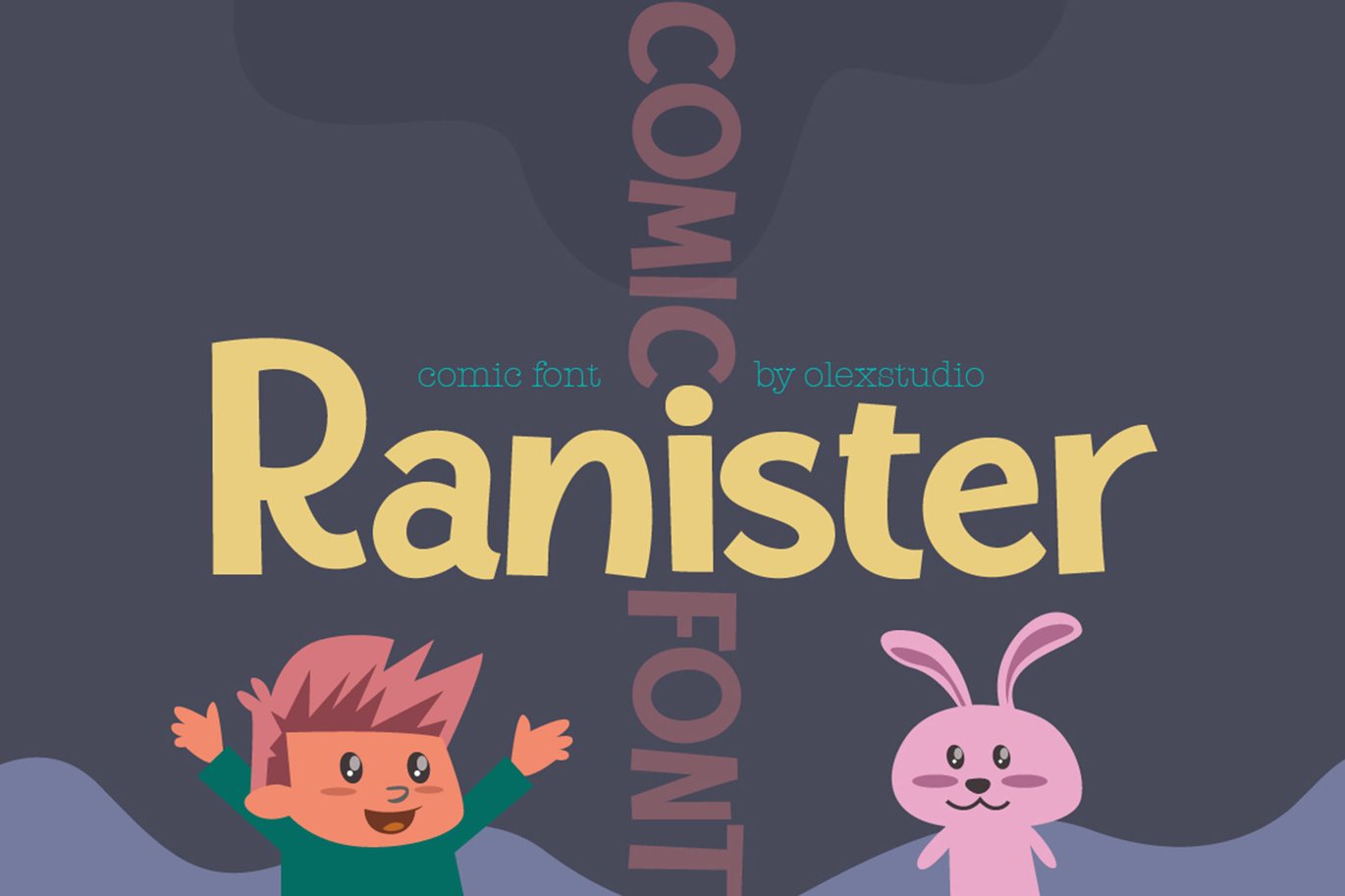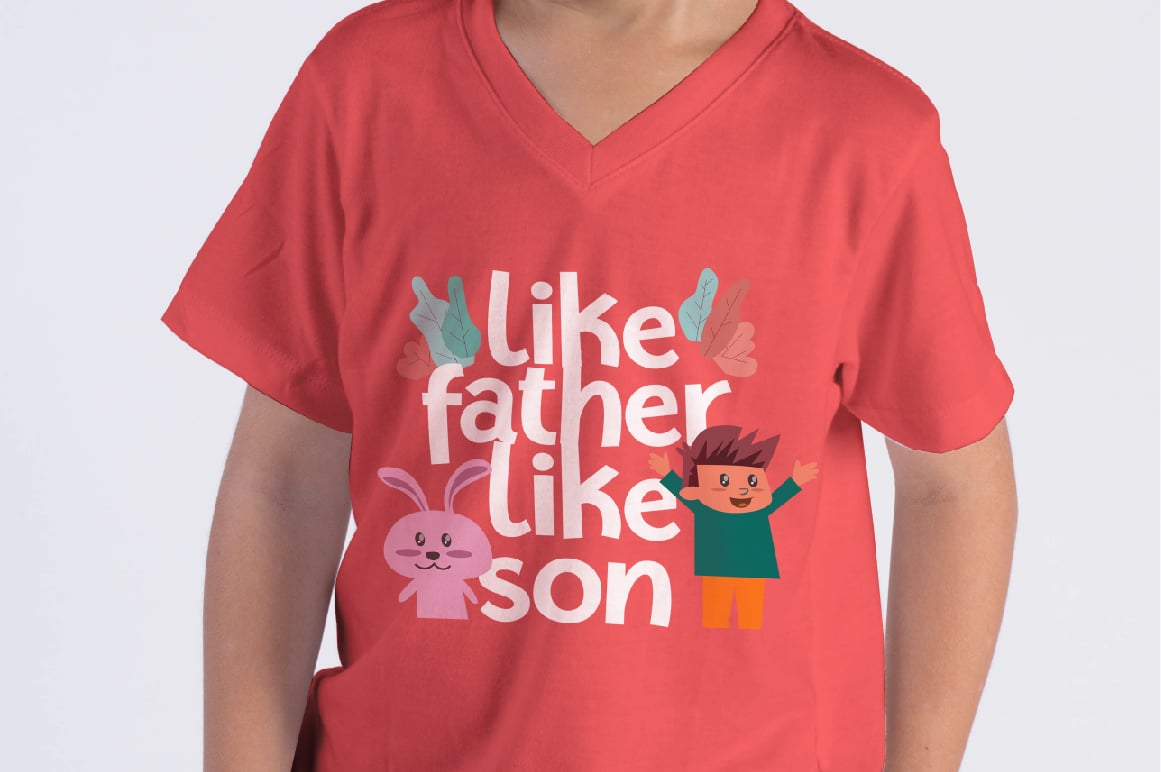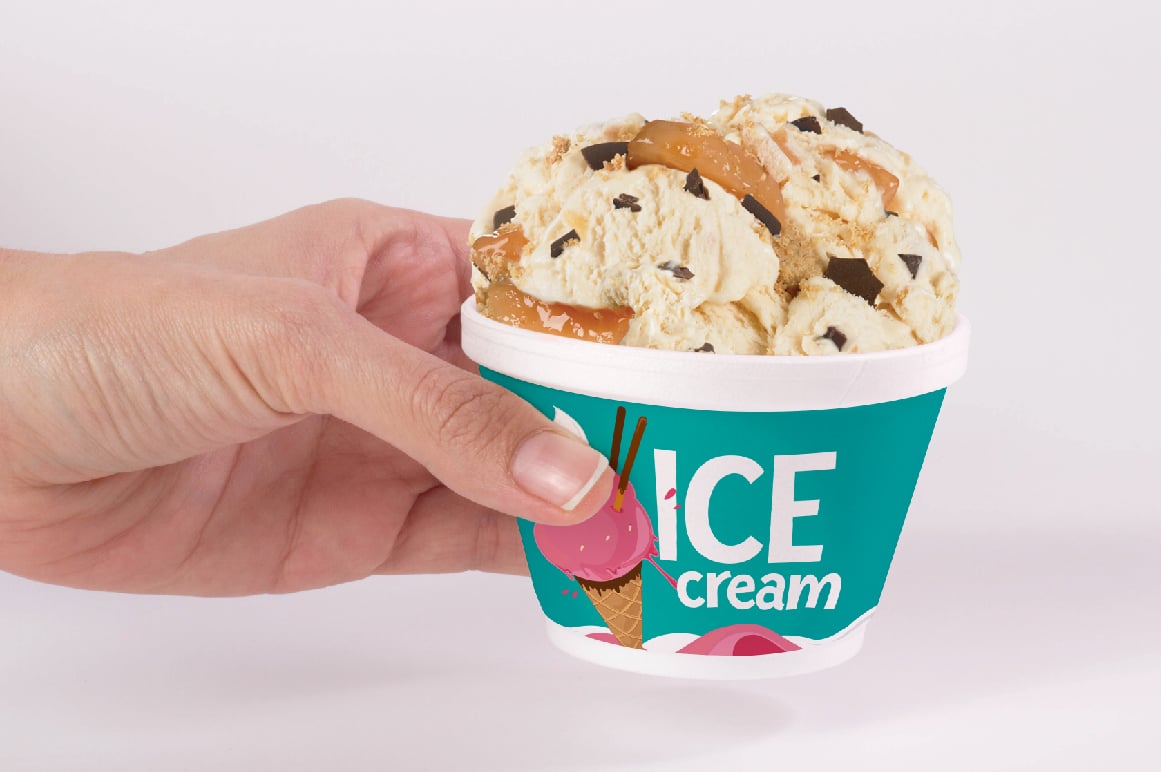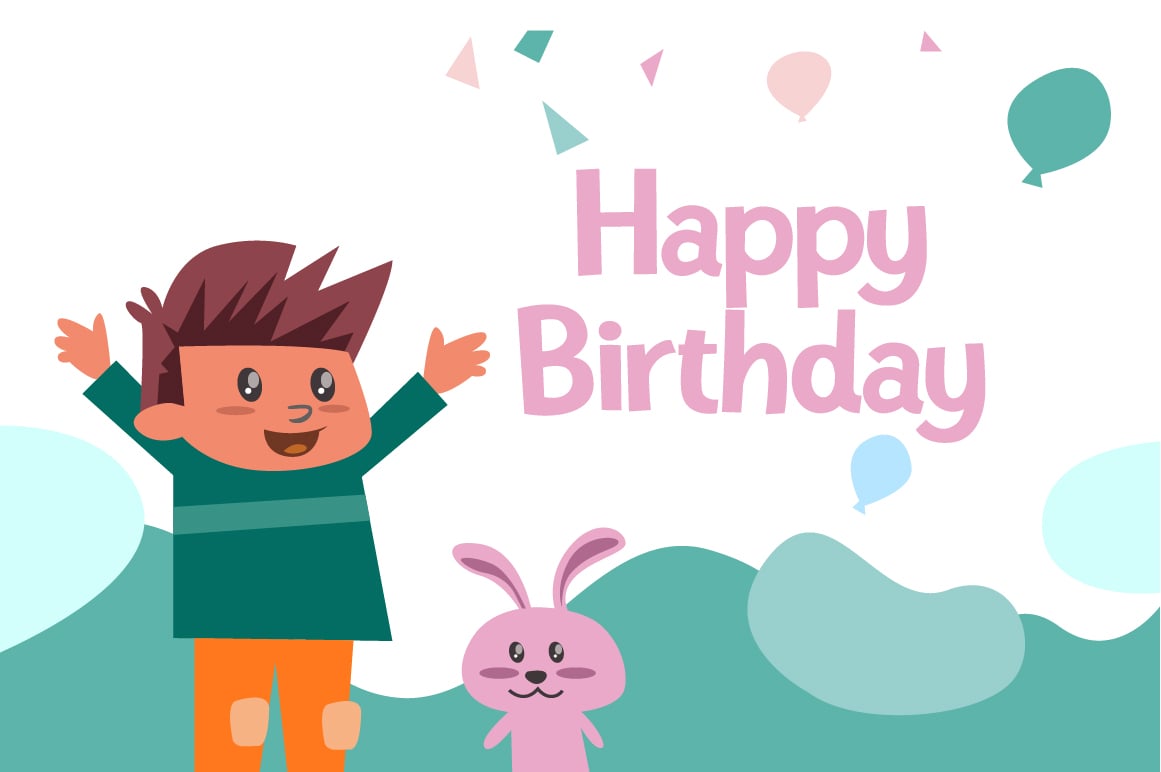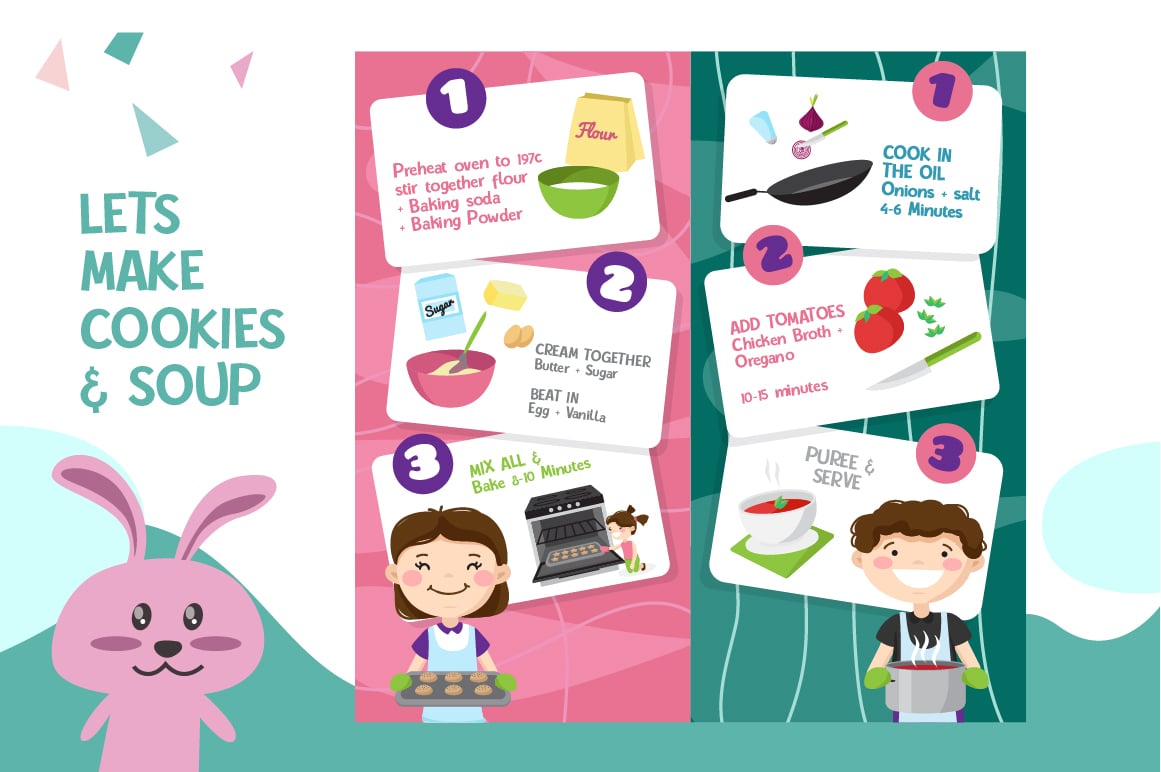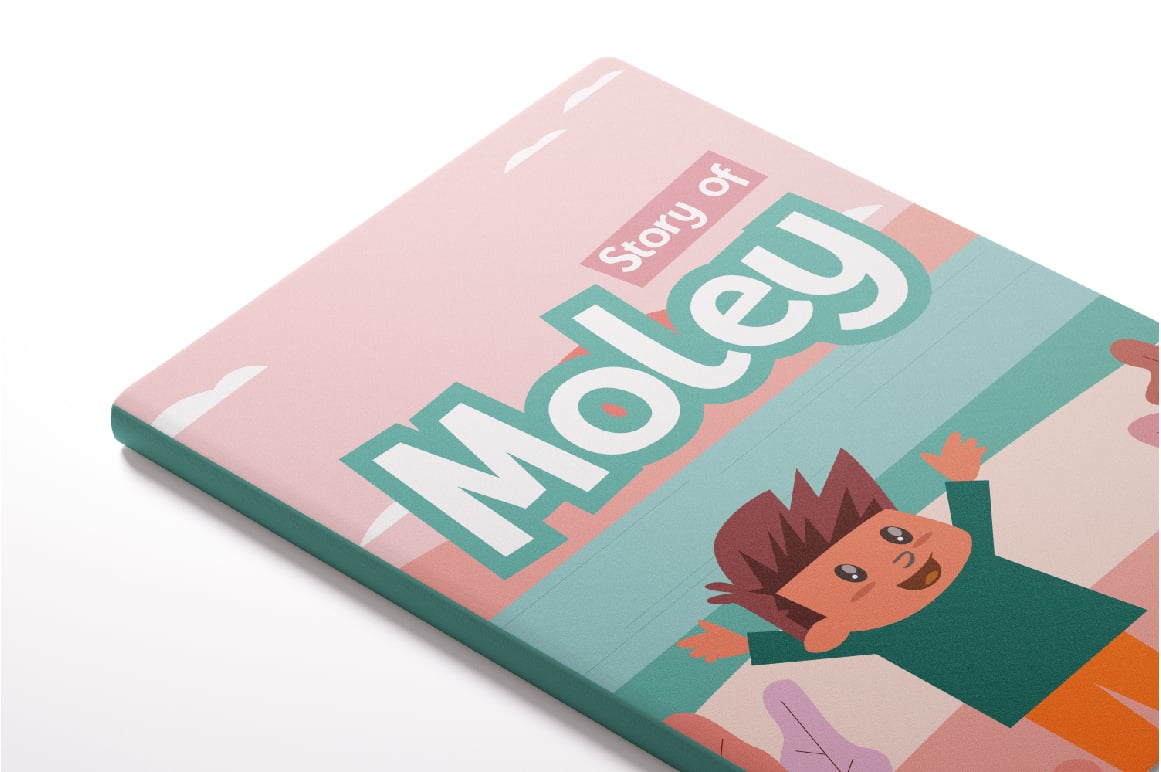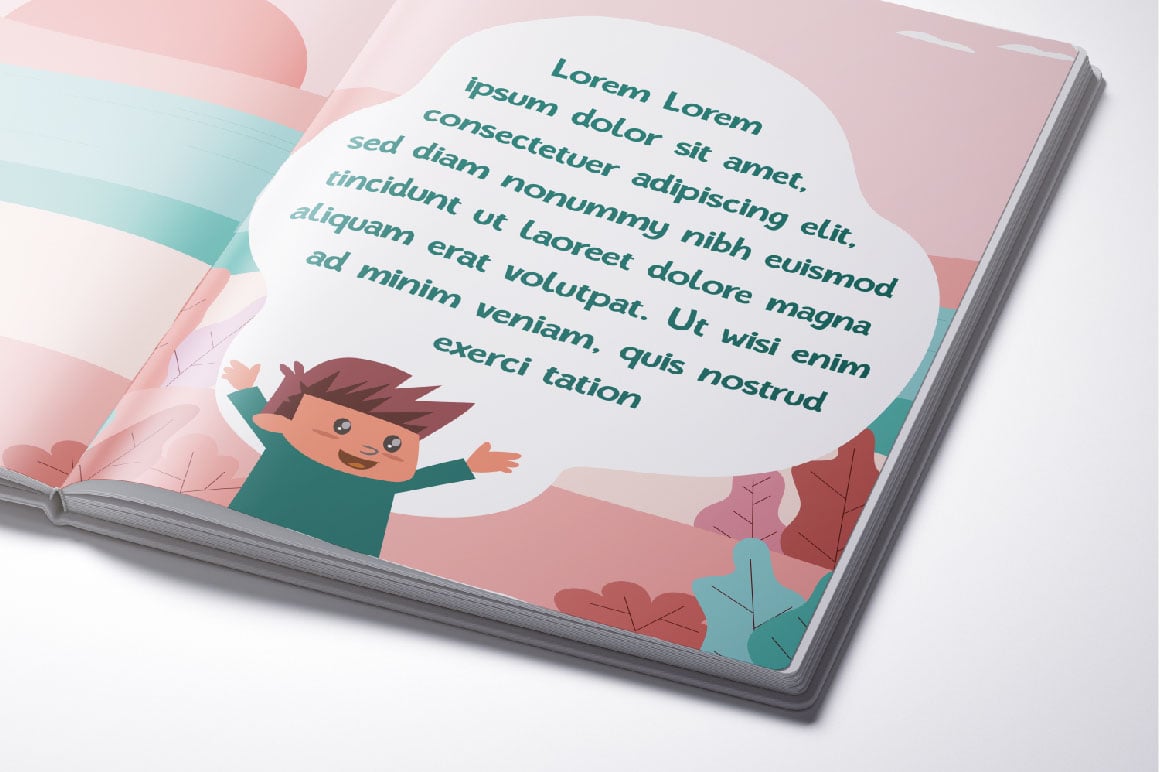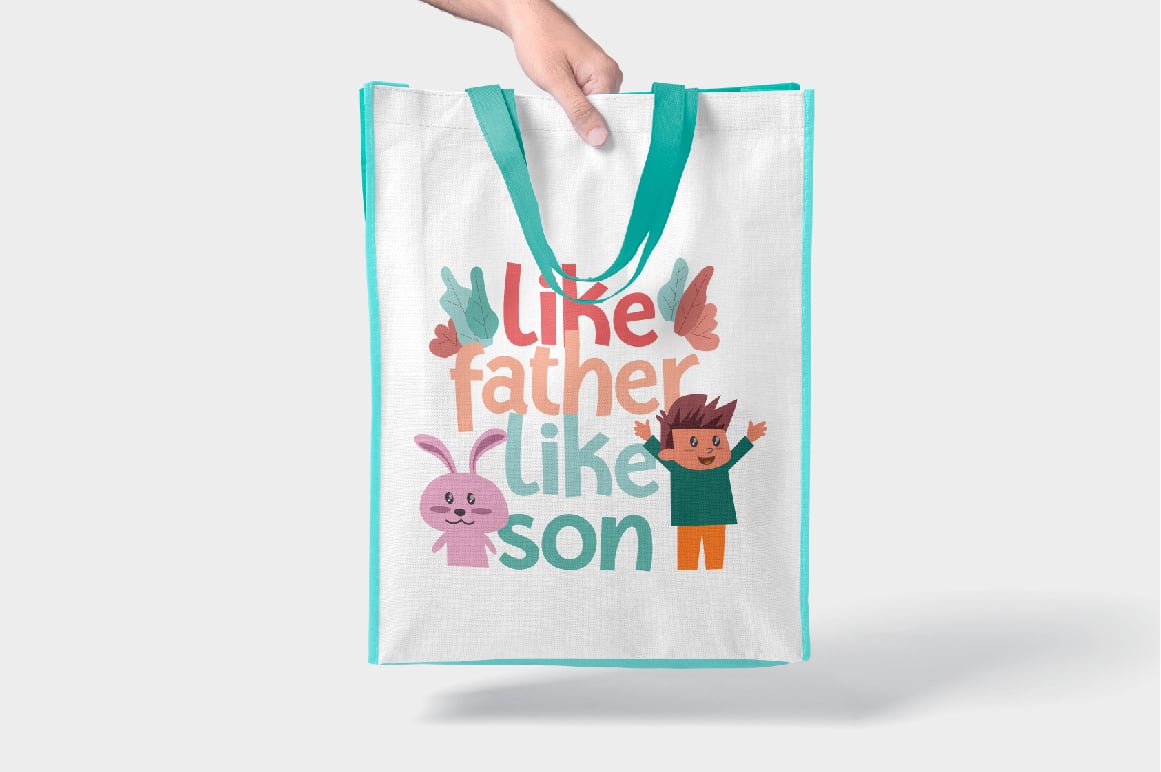
COMIC FONT – RANISTER
RANISTER – Comic Font This Font will look gorgeous on all your designs, invitation, Kids design, baby design, book, branding materials, logo’s, t-shirt, poster and all project design other.
RANISTER – Comic Font contains standard characters, all character is Uppercase, Lowercase, numbers, punctuation, ligatures and international glyphs. You will receive OTF, TTF files & WEBFONT